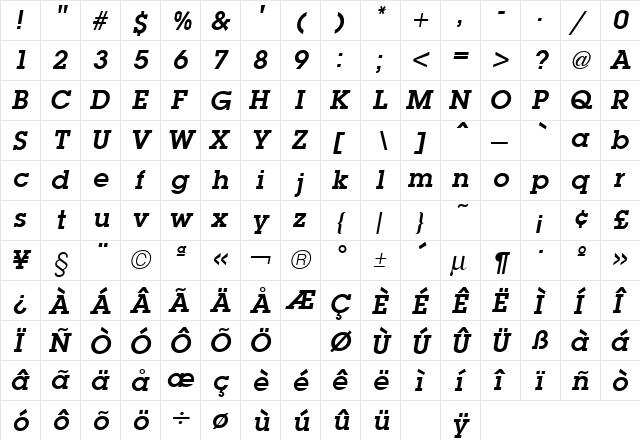
Lubalin Graph Demi Italic Font Preview
Lubalin Graph Demi Italic
Lubalin Graph Demi Italic Font Details
Design Context for Lubalin Graph Demi Typeface
Lubalin Graph Demi takes a measured approach to typography — its balanced proportions and neutral character make it a reliable workhorse for both digital and print work. The slanted form adds forward momentum and visual energy.
Pro Tip: Use Lubalin Graph Demi for emphasis, pull quotes, and subheadings where its slanted energy can add rhythm to the layout.